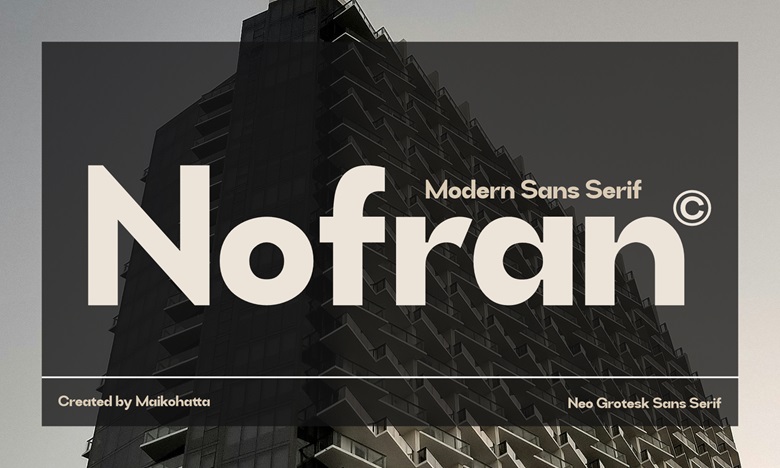
Nofran Font
Nofran is a contemporary sans-serif typeface based on pure geometric shapes and neo-grotesk style. It is a multifunctional typeface that introduces a smooth and modern sound to branding, editorial designs, logos, and Web interfaces. Its proportions are balanced, and its sophisticated letterforms are a professional appearance that is timeless- both in bold headlines and minimal body text.
Nofran is simple and full of confidence due to its smooth curves and exact structure, which is why it is a good choice among designers who want to have a modern and effective sans serif with character.
Nofran Sans Serif Font